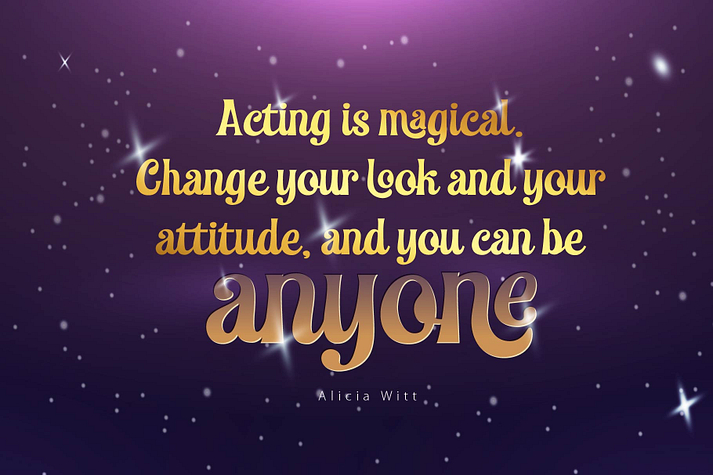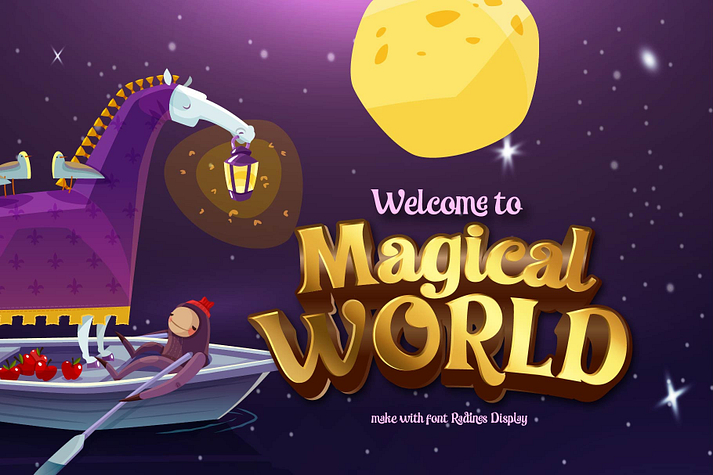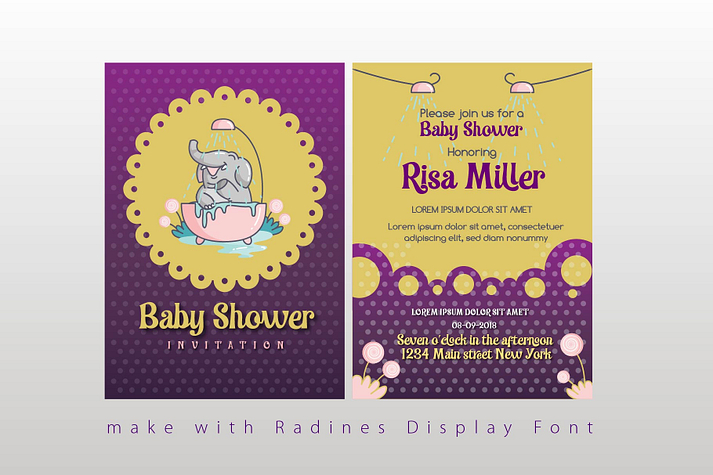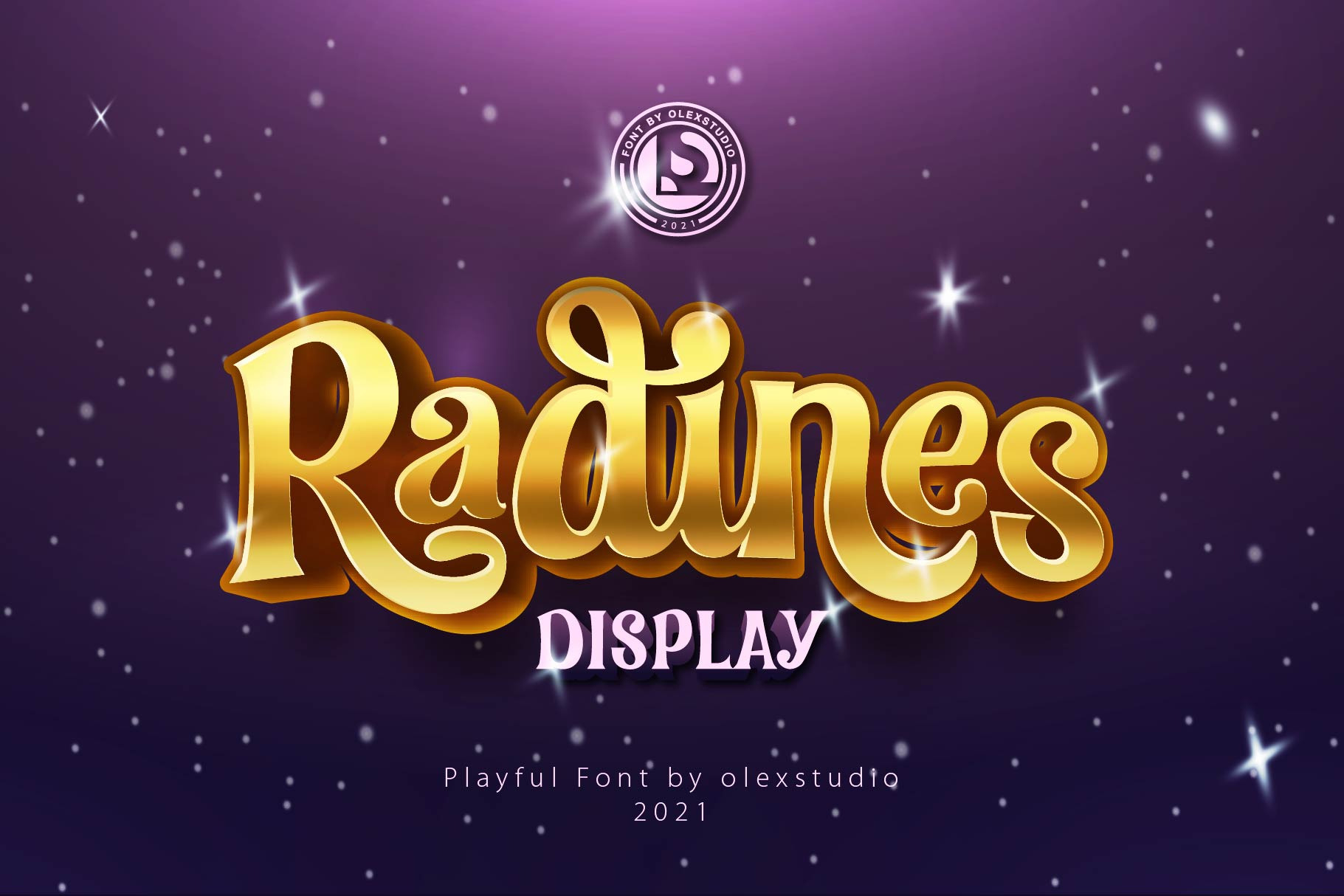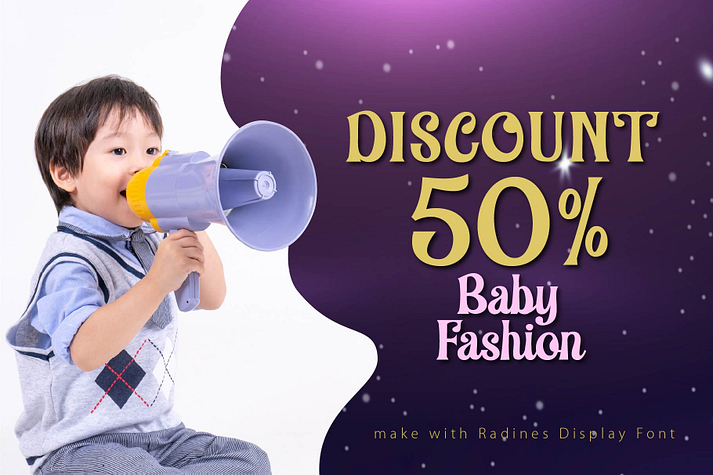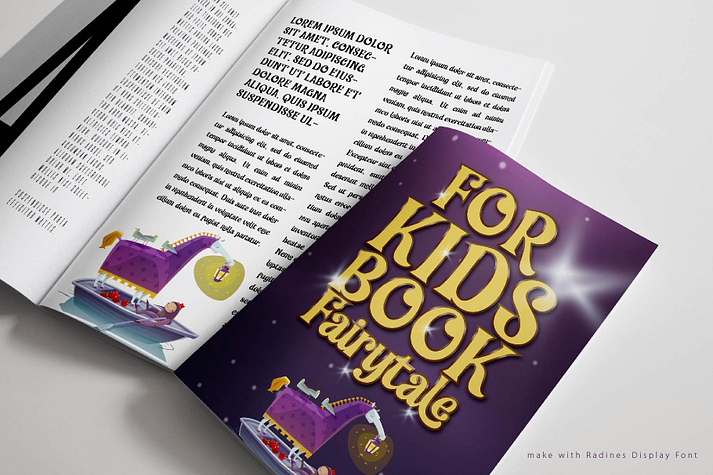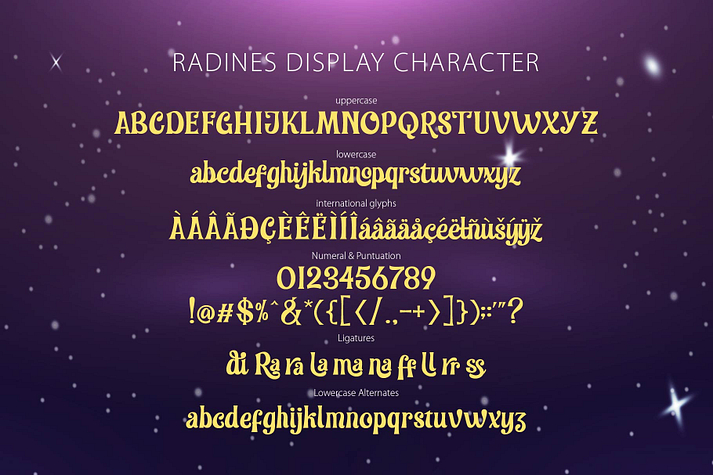
Radines Display
Radines Display is a font family published by olexstudio.
RADINES display Font will look gorgeous on all your designs, invitation, poster design, book design, branding materials, logo’s, t-shirt and all project design other.
RADINES display Font contains standard characters, Uppercase, Lowercase, Alternates Glyphs, numbers, punctuation, ligatures and international glyphs. You will receive OTF, TTF files & WEBFONT.